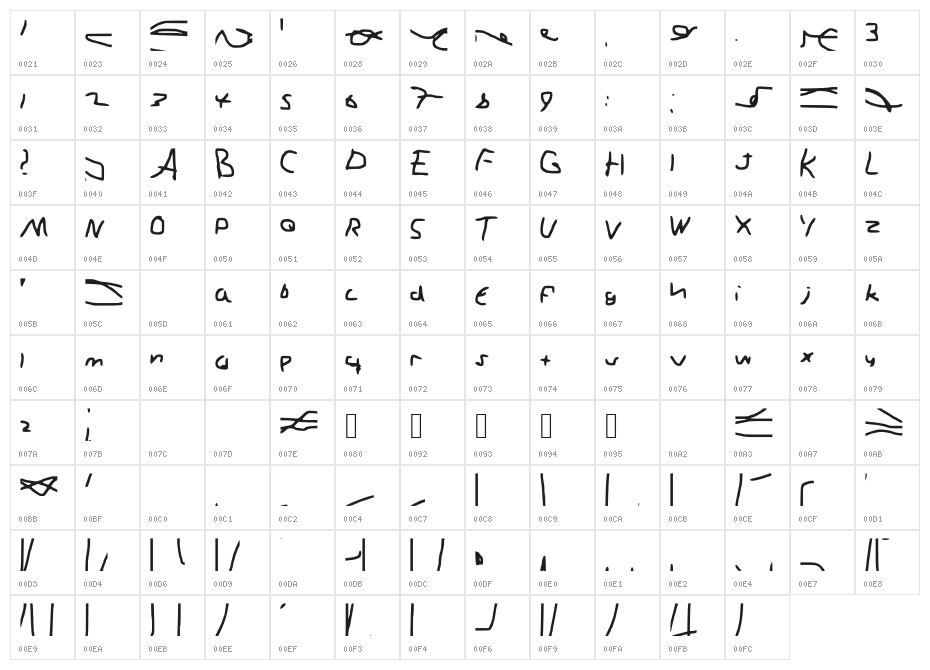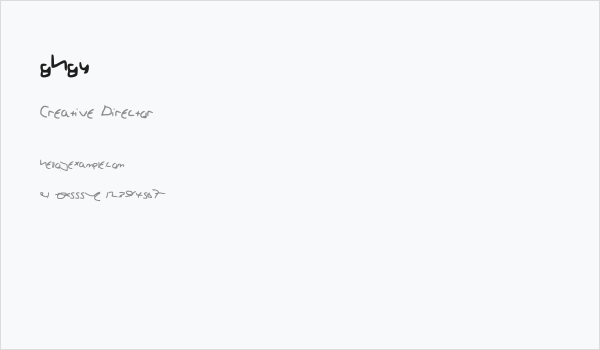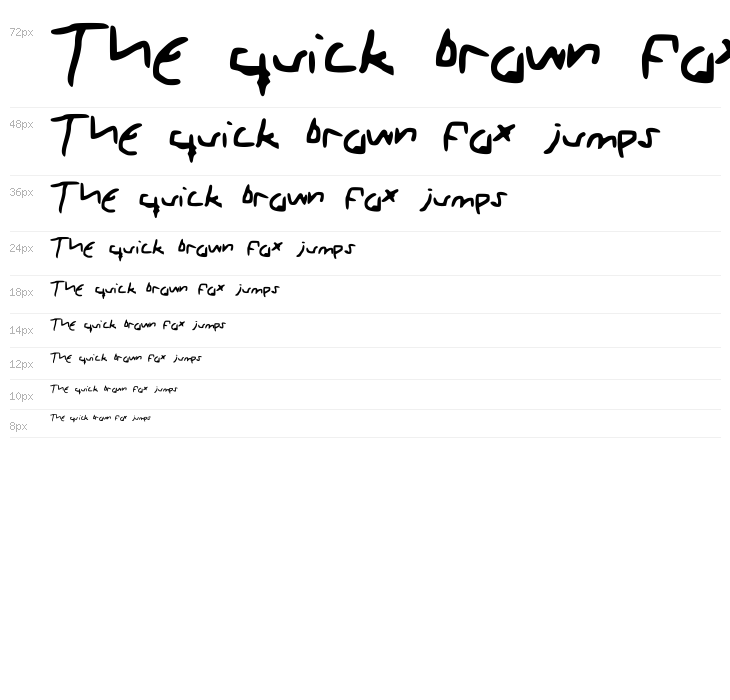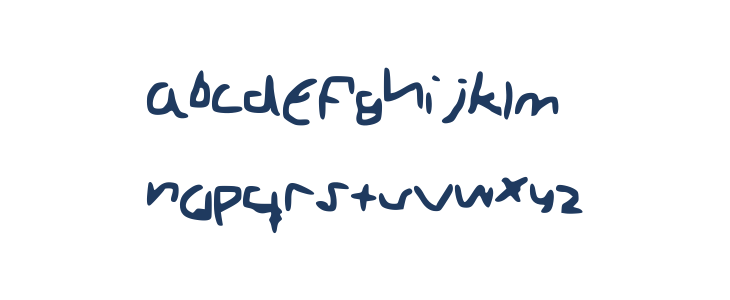
ghgy Font
This font exhibits a unique, handwritten style with an informal and playful appearance. The characters are irregular and have a dynamic flow, reminiscent of quick, casual handwriting. The strokes are varied in thickness, contributing to a lively and spontaneous look. The uppercase and lowercase letters maintain a consistent style, with some letters featuring distinctive loops and curves. Numbers and special characters follow the same whimsical design, adding to the font's overall charm. This font is ideal for projects that require a personal touch or a creative flair.
Overall StyleCasual, Playful
Use CaseHeadlines, Creative projects, Informal communications
Proposed ProjectsIdeal for greeting cards, personal notes, creative posters, and children's book illustrations.